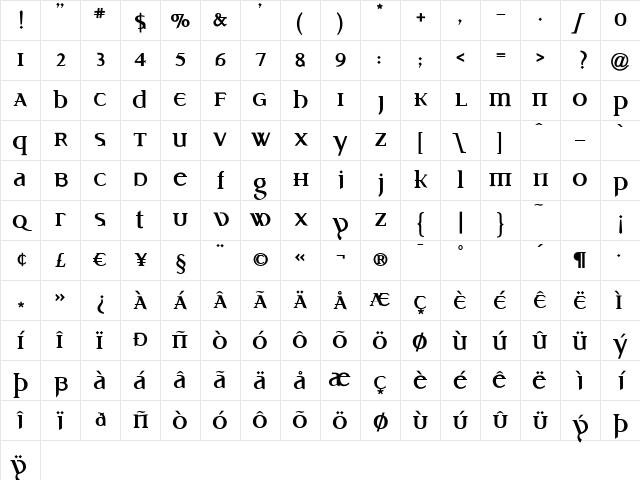
Complete Idiosynoptium Regular glyph index. Displaying only characters natively supported by Idiosynoptium Regular font.
Idiosynoptium is a composed and adaptable typeface that performs quietly and consistently across a wide range of design contexts.